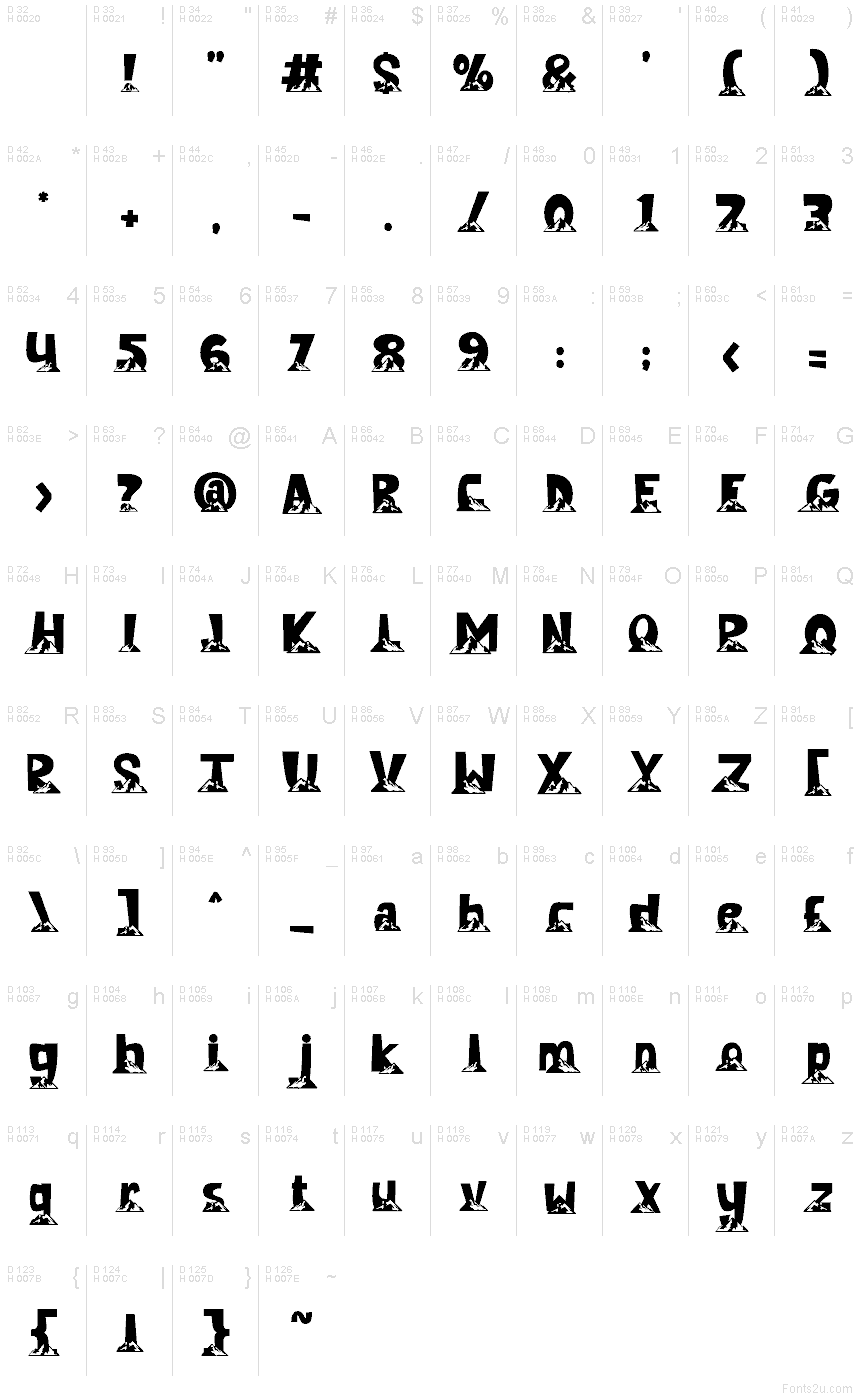
Cedar Heaven Mountain
Cedar Heaven Mountain font by PutraCetol Studio is a bold decorative display font inspired by the wonders of nature. Its graphically integrated elements, together with its rugged aesthetic, combine to give viewers a strong visual impact and an adventurous tone. This is such a great free resource for brand new exciting graphic design projects that go beyond ordinary.